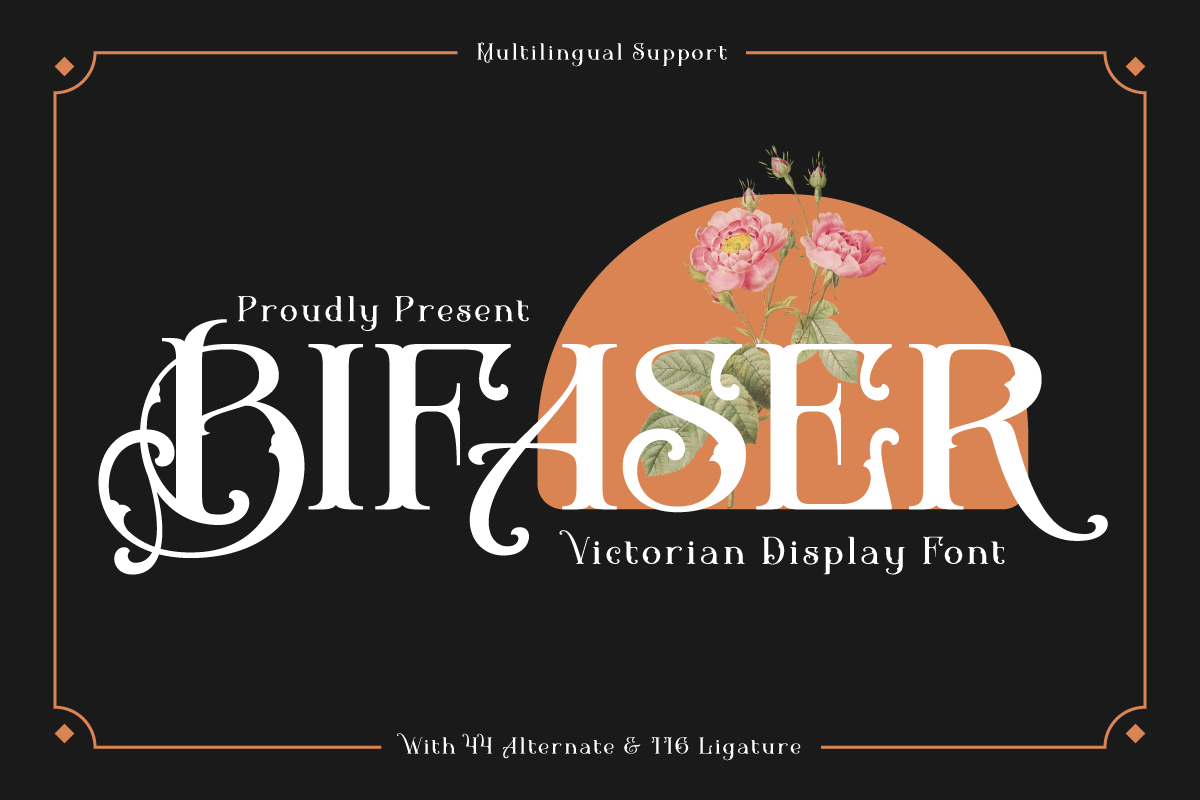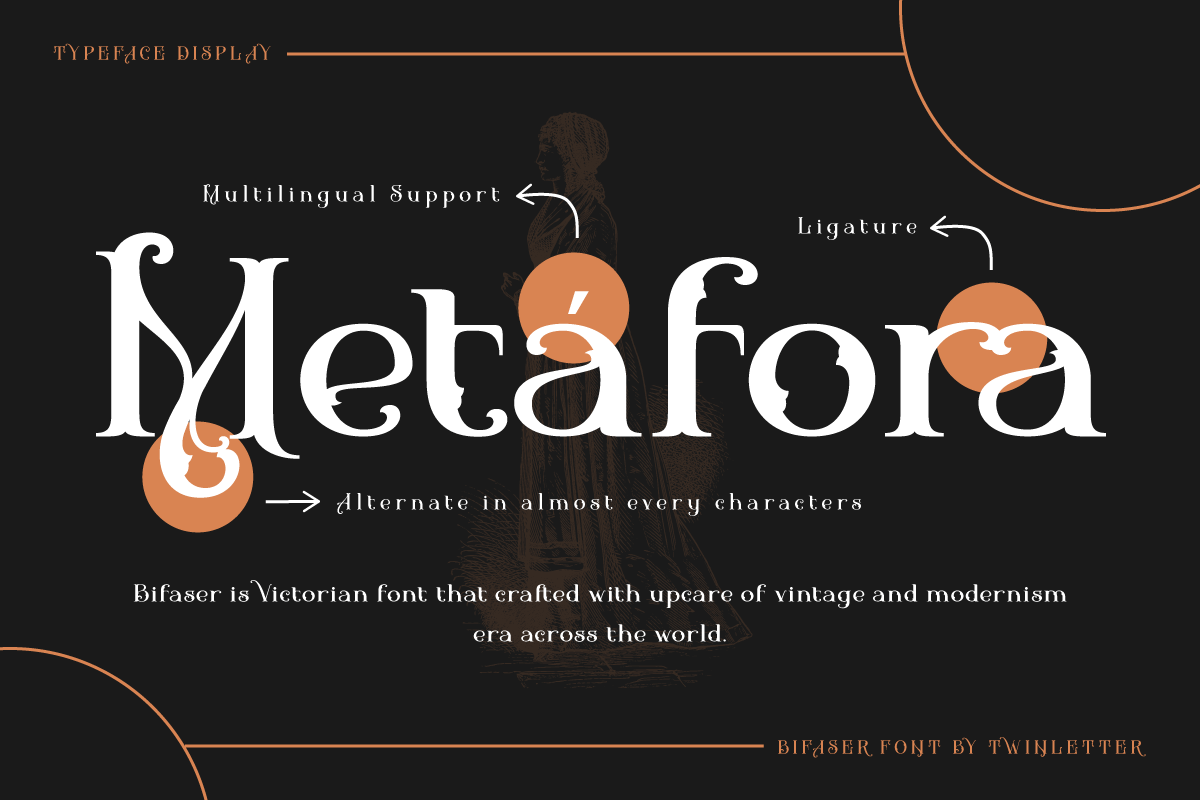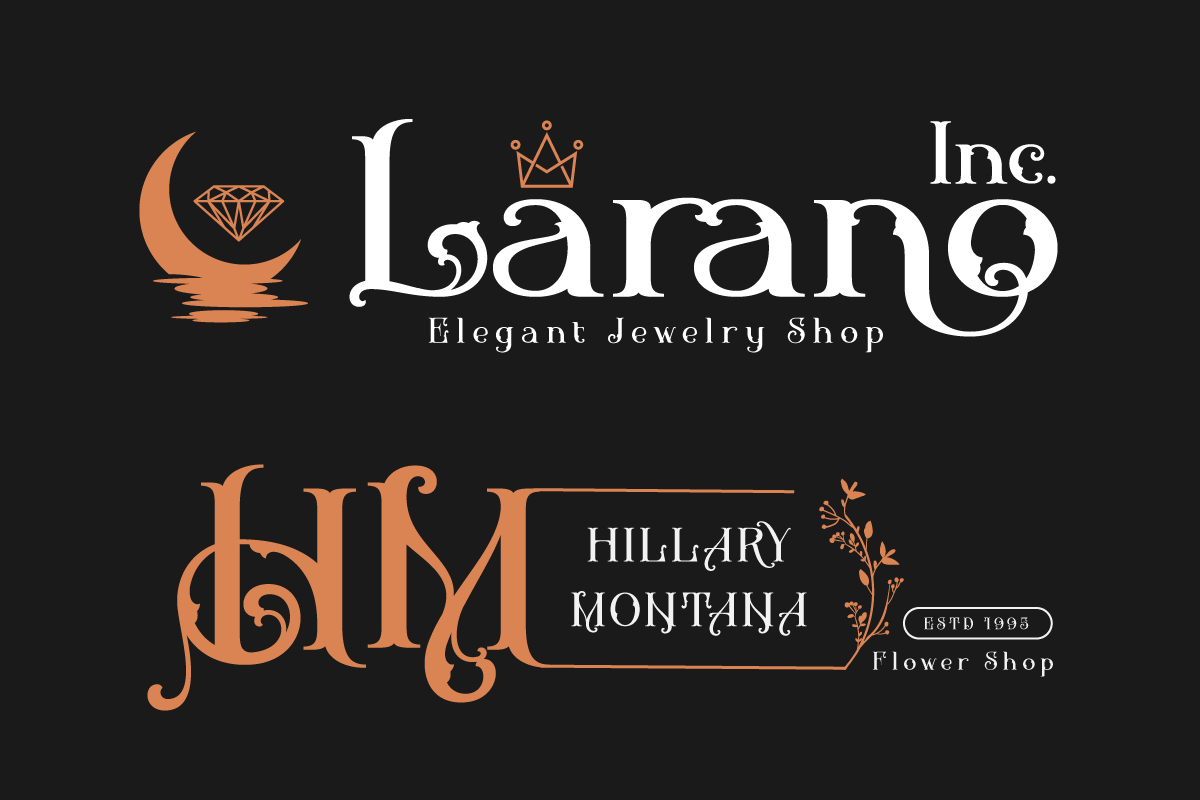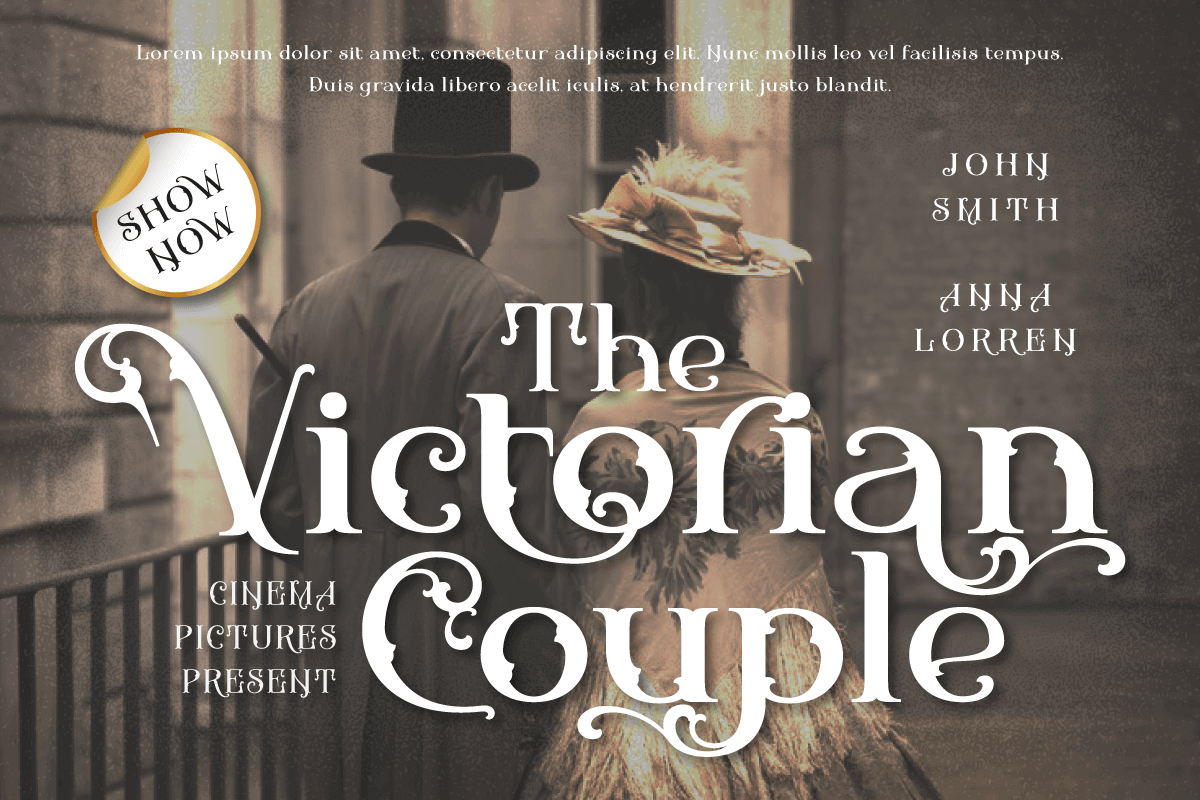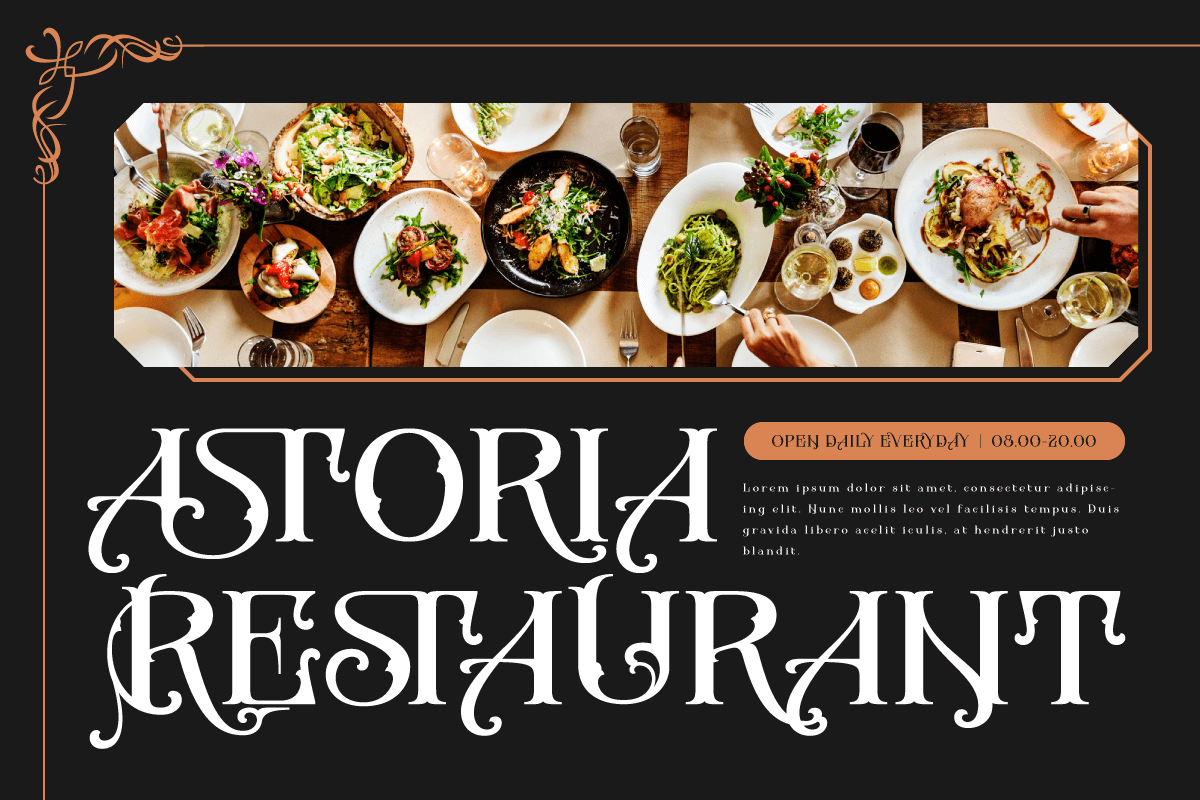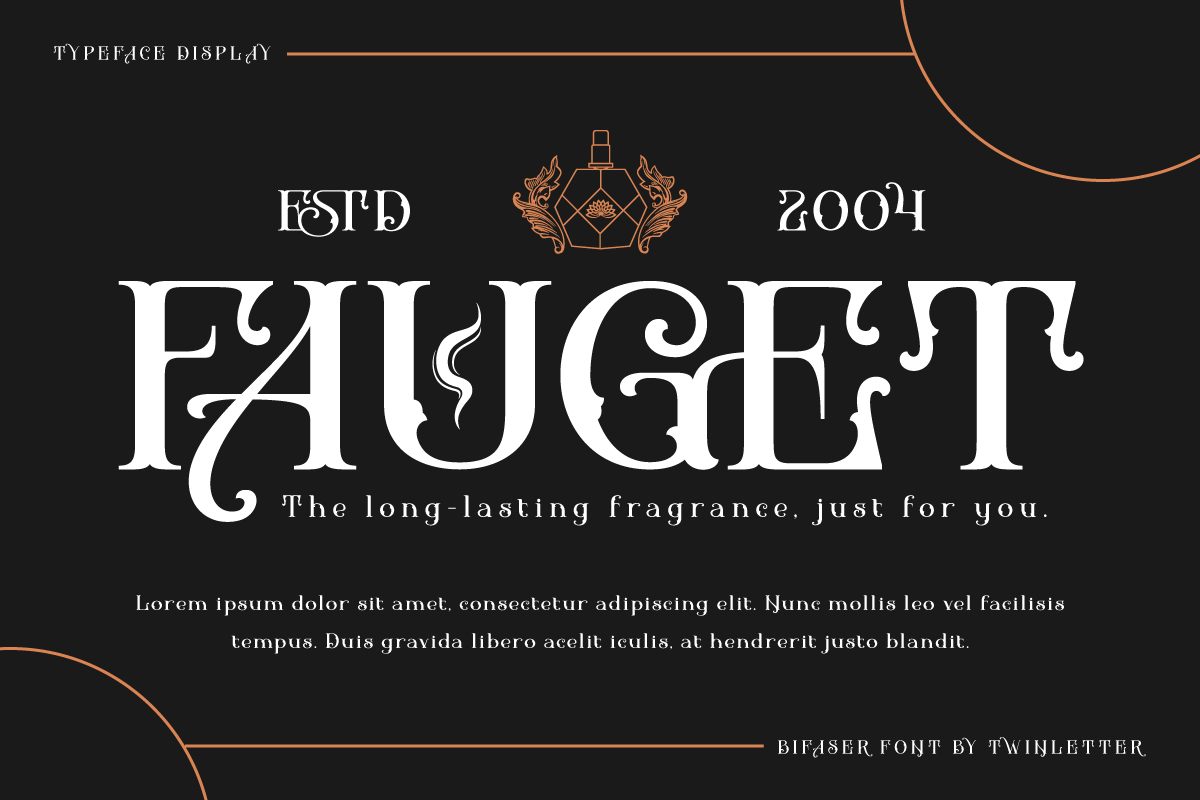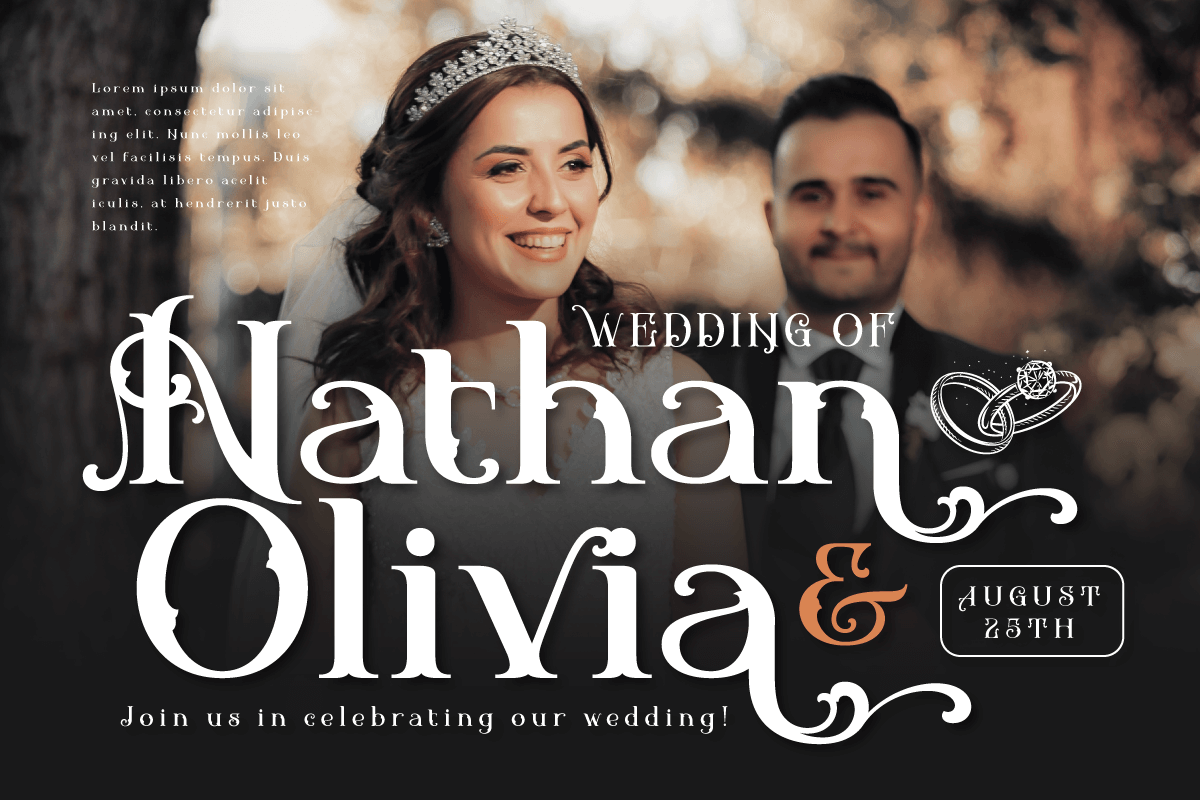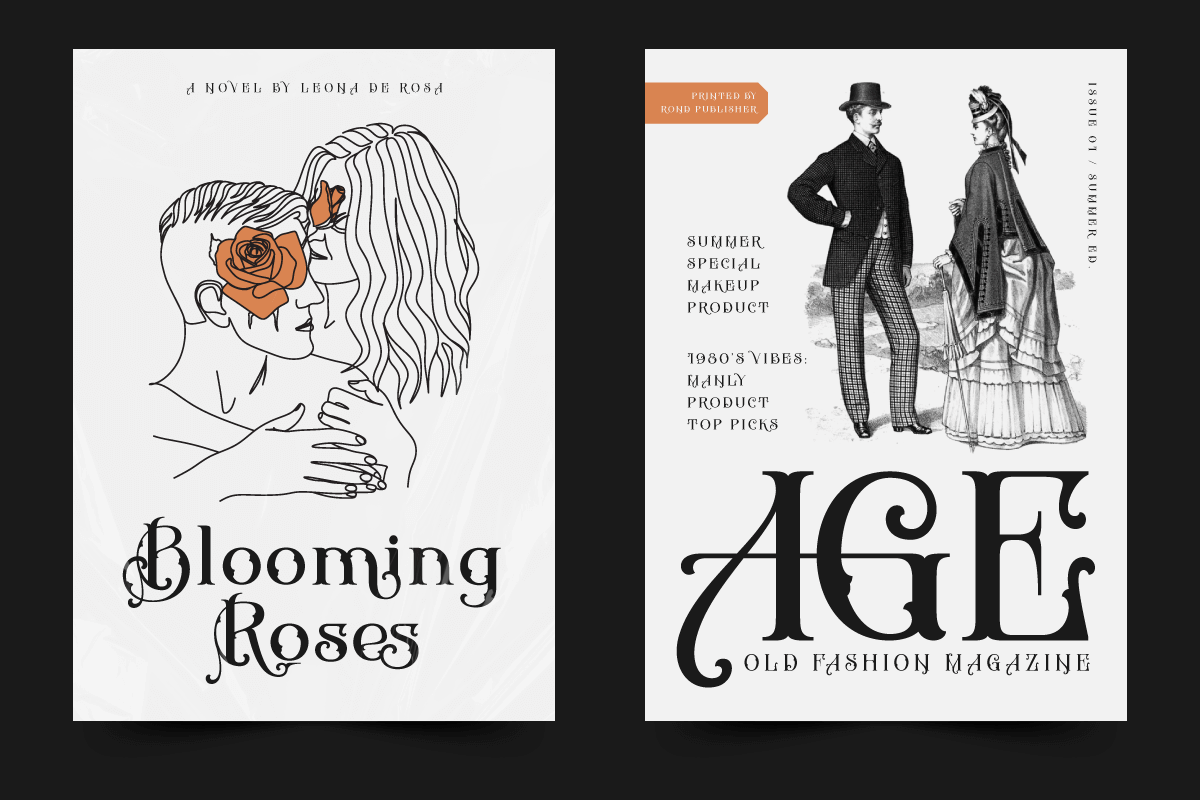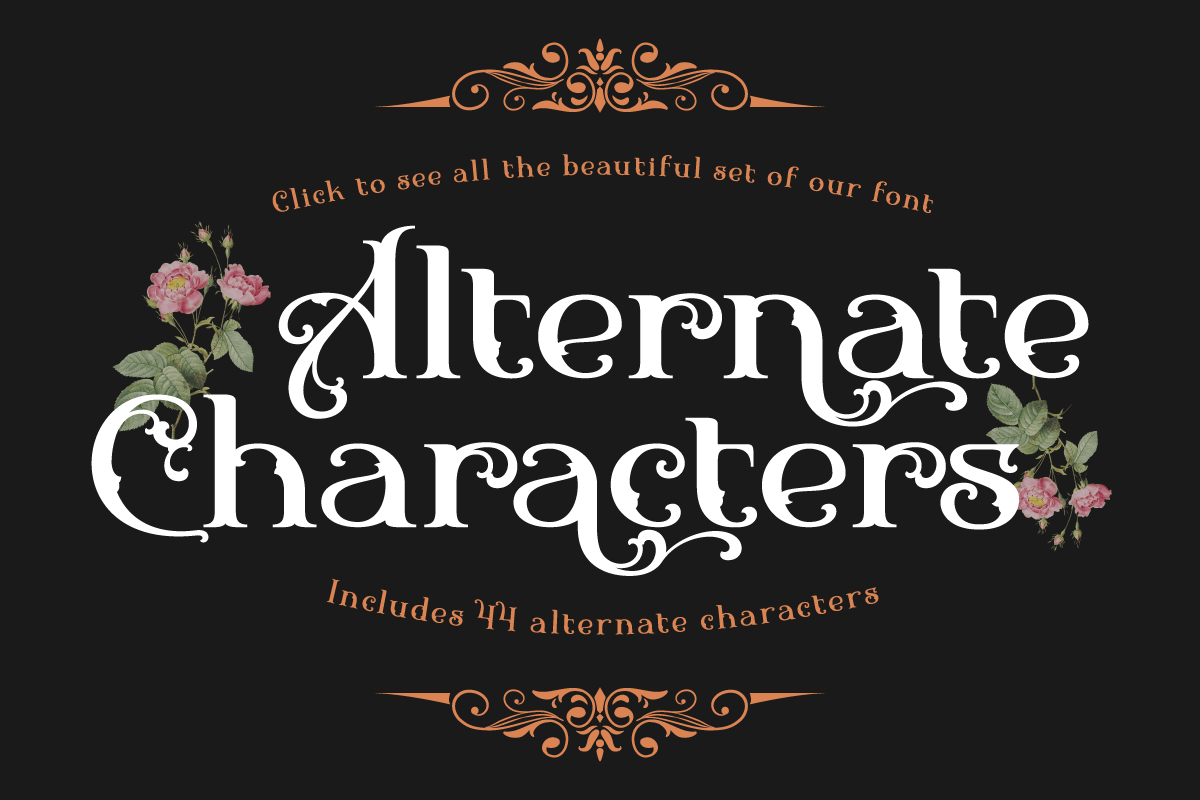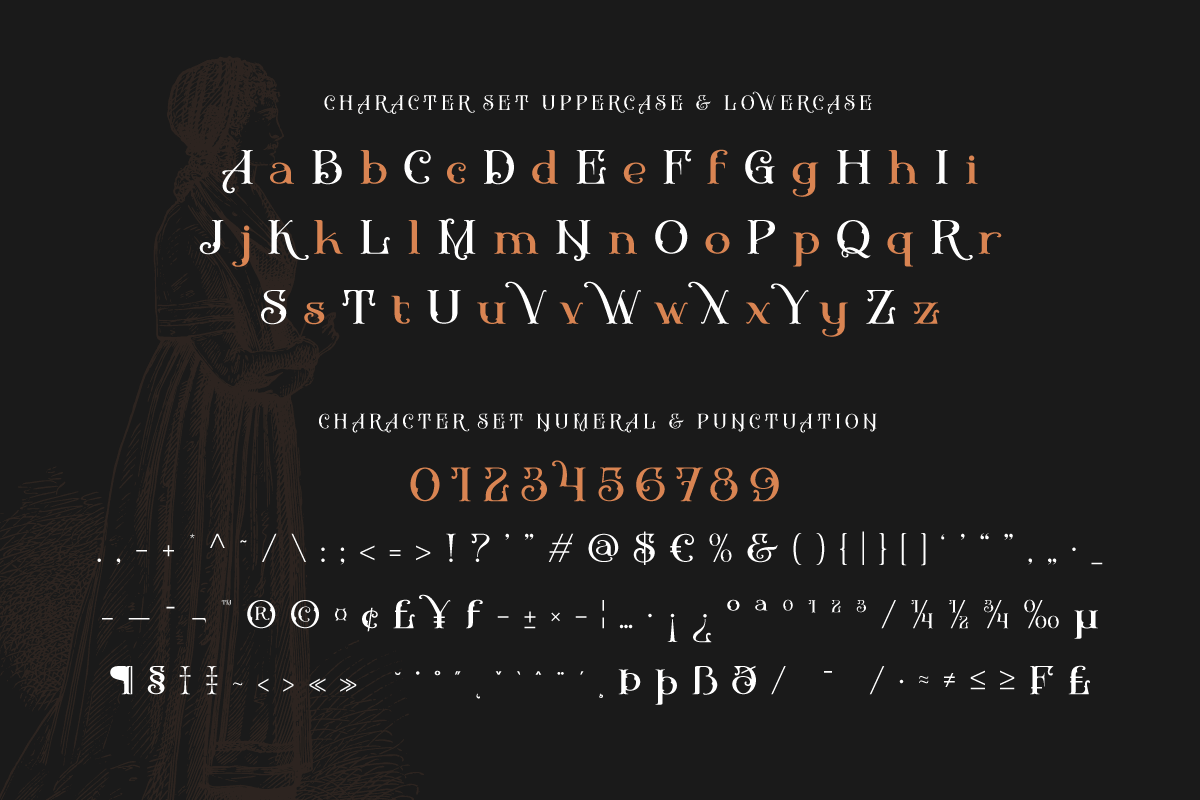
BIFASER – Victorian Font
Get to know Bifaser, the classic Victorian font that will bring the era’s mesmerizing beauty to your design projects! With an elegant and classy classic Victorian theme, this font is the perfect choice to bring a strong and alluring black letter feel to each creation. Biphaser perfectly describes the elegance and splendor of the classic Victorian typography style. Each letter has exquisite detailing and well-proportioned composition, creating a sophisticated and classy impression. In every project, Bifaser is able to exude the enchanting power and charm of black letters.
Not only that but Bifaser is also equipped with great features such as ligatures and alternative characters that provide flexibility in creating unique and interesting letter combinations. With ease, you can explore creative and attractive design variations.
Bifaser also supports multilingualism, allowing you to easily and broadly reach an international audience. Whatever language you use, Bifaser will be a loyal partner who is ready to give beauty and excellence to each of your designs.
With Bifaser, you can create works that reflect the power and luxury of black letters. Show a strong, classy, and stunning style in every touch of your design. Don’t miss the chance to own this eye-catching classic Victorian font. Biphaser will be the right choice to give beauty and charm to your design project.
- Alternate, Ligature